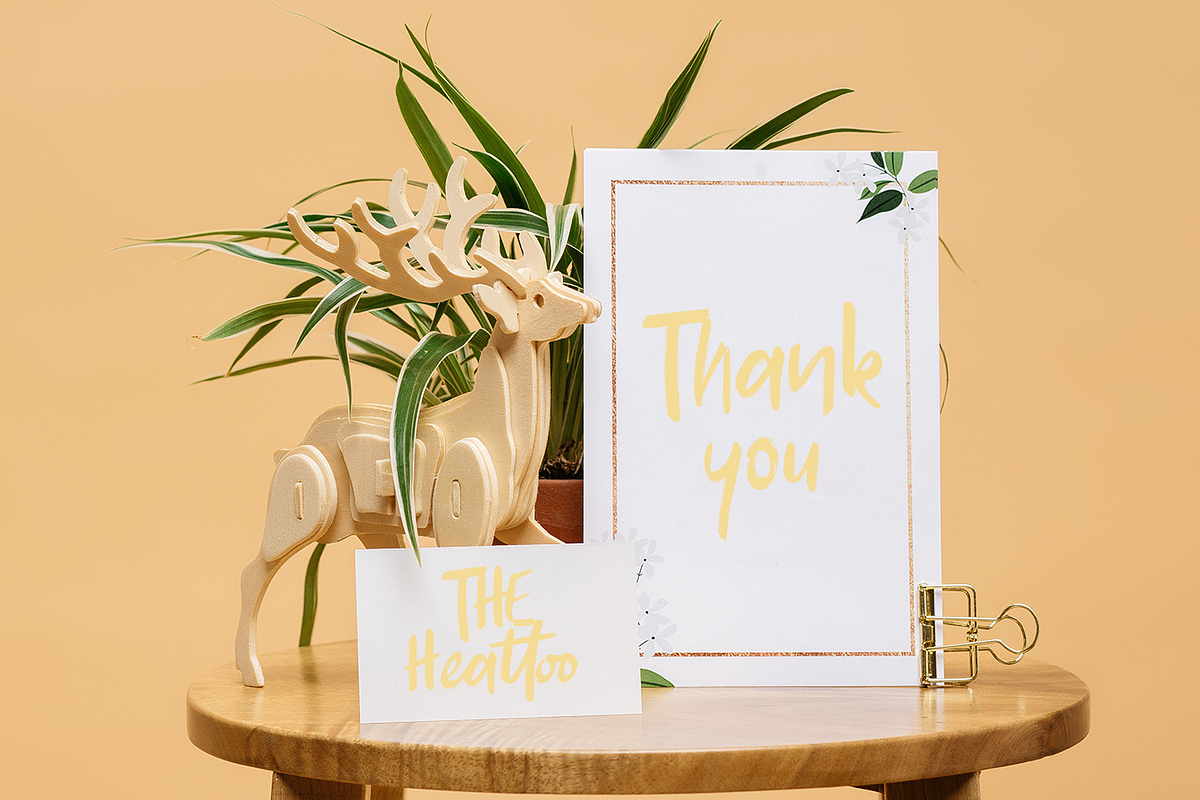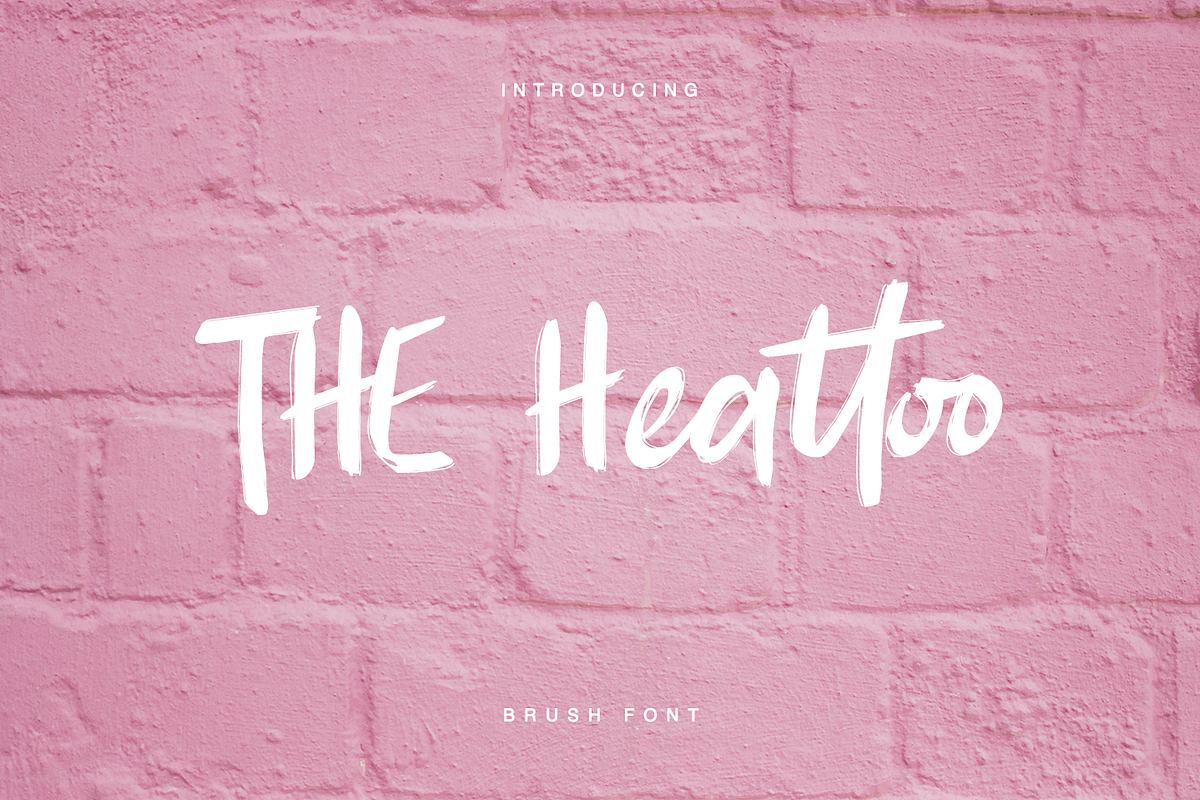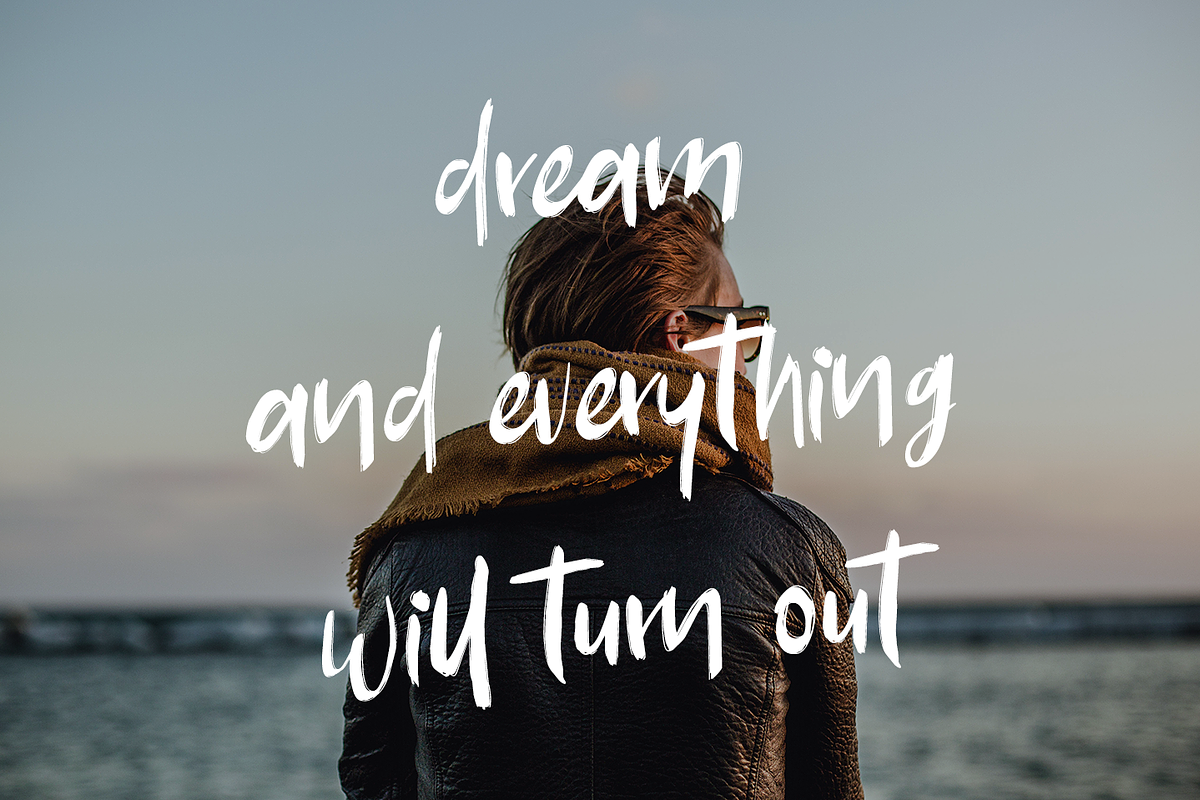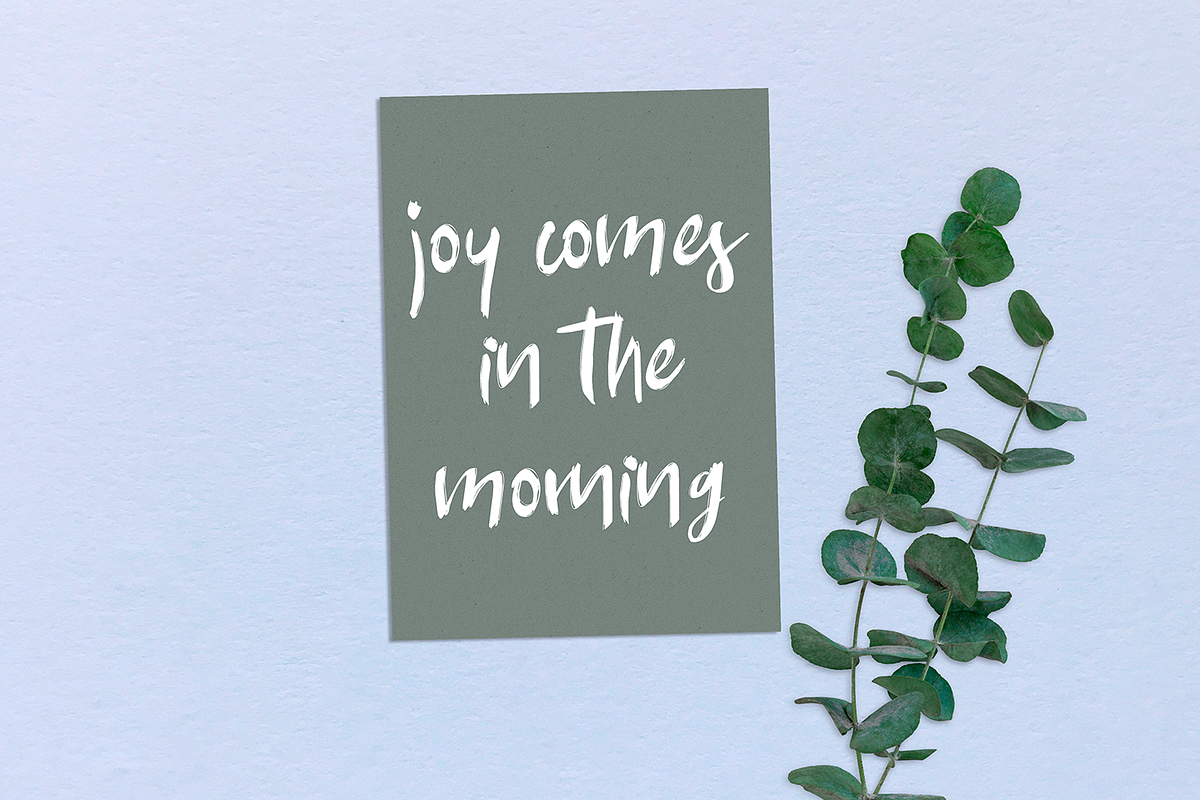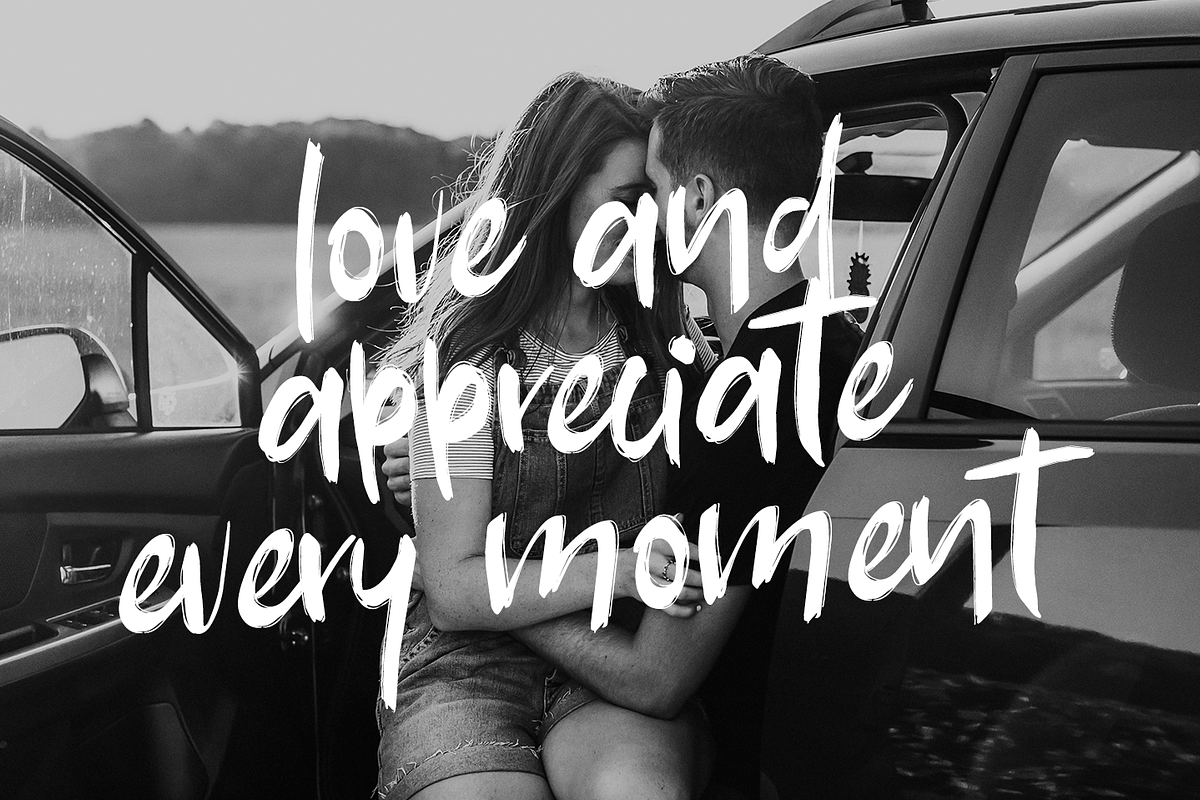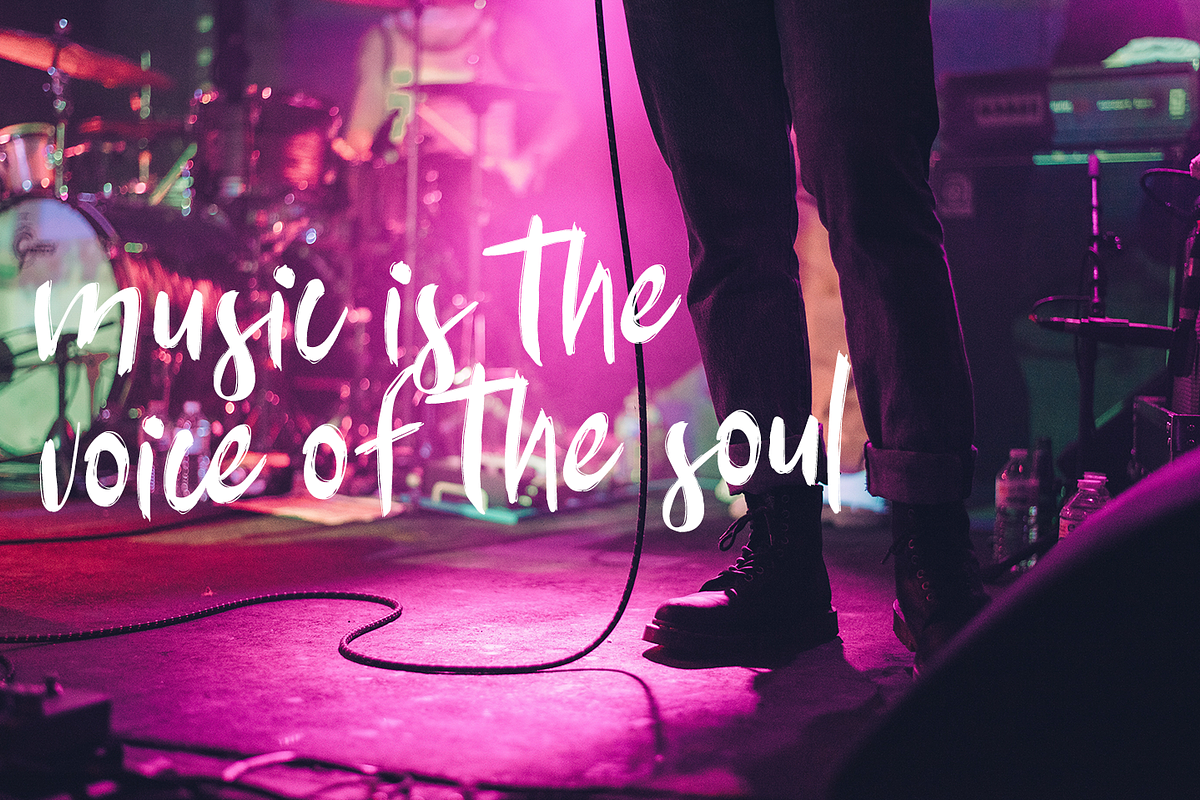
THE Heattoo BRUSH FONT
THE Heattoo - a new fresh handmade calligraphy font.
Very suitable for greeting cards, branding materials, business cards, quotes, posters, and more!This font are perfect for wedding postcard. Or you can create perfect and unique design of your logo, blog, stationery, marketing, magazines and more :)
THE Heattoo BRUSH FONT by Quothron fits naturally into Branding, posters, packaging, typography.